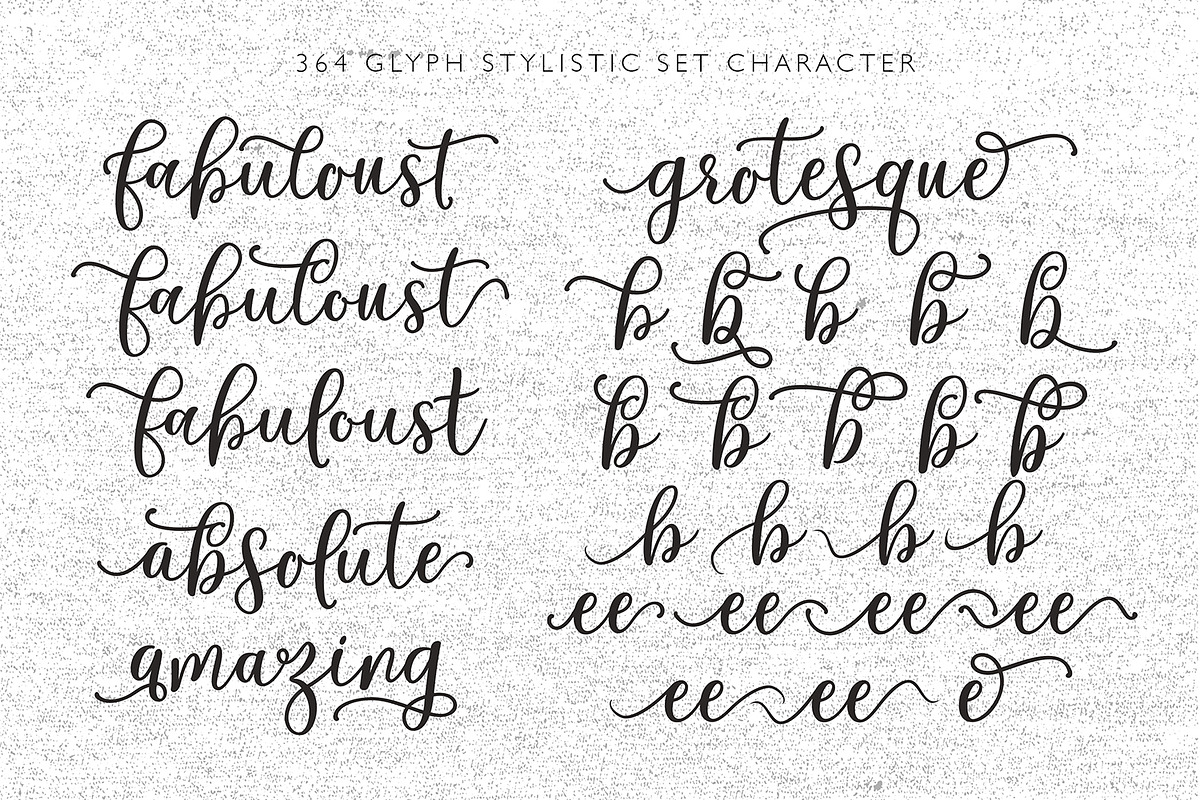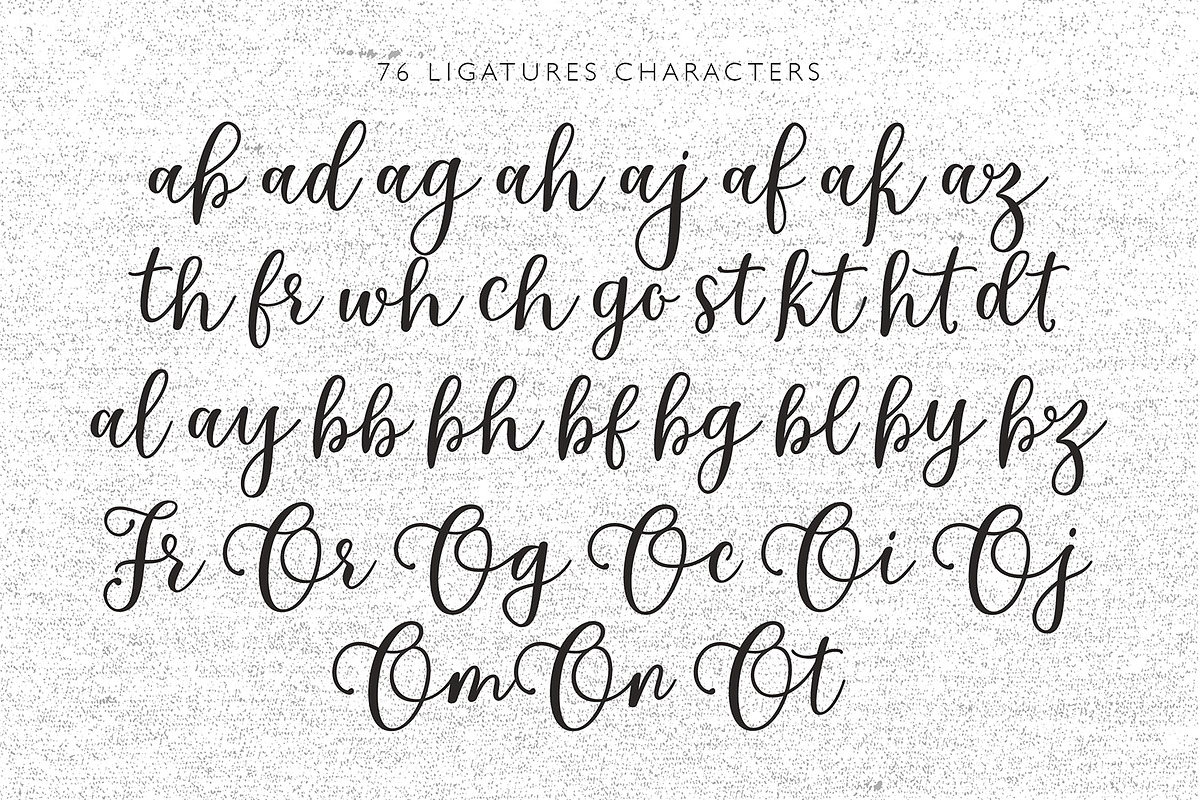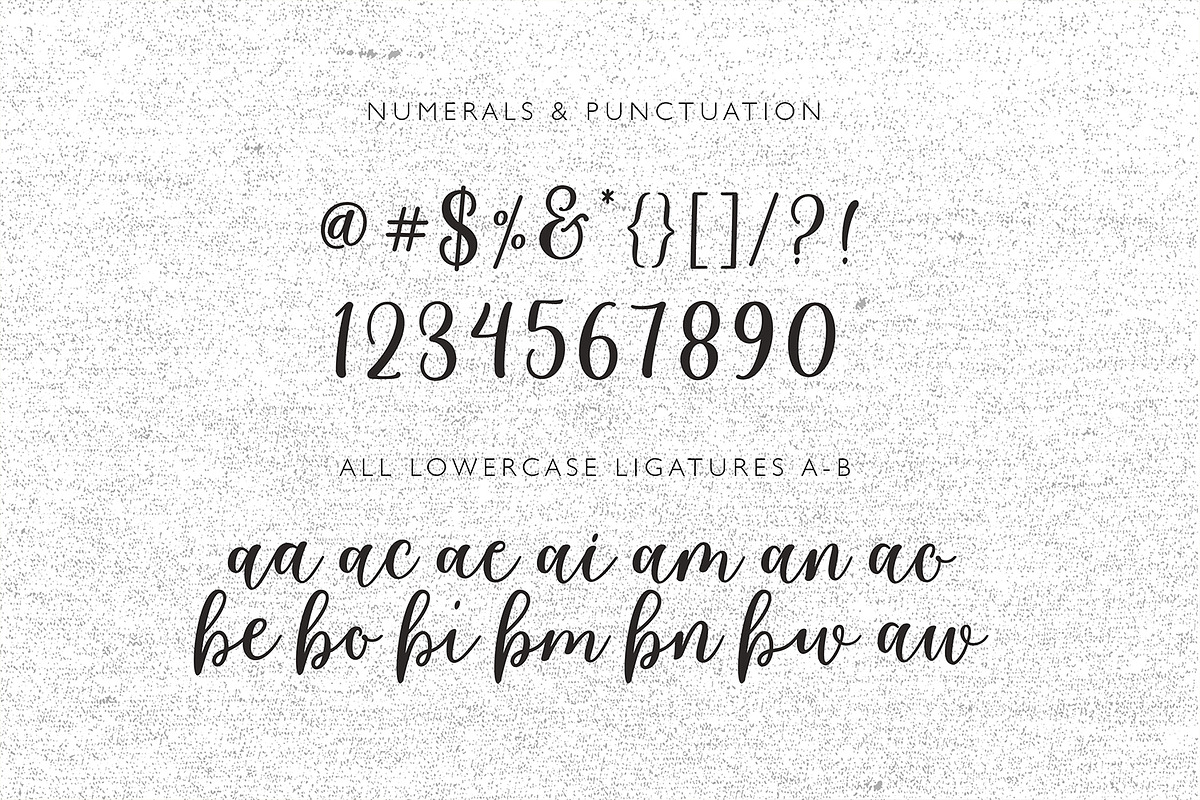
Cabelita Script
Cabelita is a handwriting font with a unique character. Full of unique features open, is best used in this type of software is open type. Most diacritics are included and fonts can be used perfectly in program support OpenType Adobe Ilustrator CS our Adobe Photoshop CS!
There are more than 669 glyphs in the font features including swashes, discretionary ligatures, Punctuation initial shape and the terminal for all the letters and stylistic set 01-015, alternative style, etc.
Cabelita Script is suitable use for market design developed at this time, this font has a model Trendy, natural and gentle, with this font you can take advantage of the opportunity in every moment of one wonderful way to highlight the celebration of the feast of your best, because this font will be advocates for purposes such as wedding invitations, party, graduation, birthday, gathering, reeting cards, prints, banners blog, clothing, quotes and more. etc.